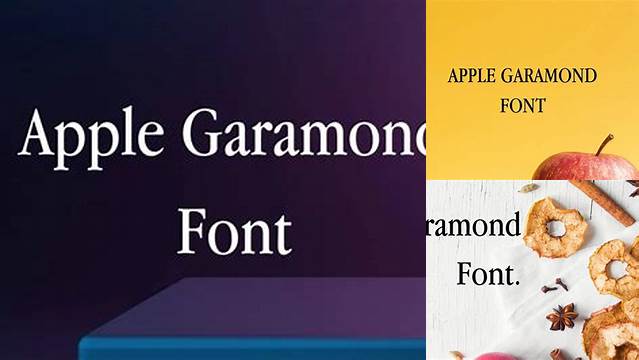
What is Apple Garamond Bold?
Apple Garamond Bold is more than just a typeface; it’s a symbol of Apple's commitment to design and user experience. Originating from the Garamond family, which dates back to the 16th century, Apple Garamond was customized to reflect the brand's minimalist and sophisticated aesthetic. The bold variant, in particular, was prominently used in Apple's marketing materials, product packaging, and user interfaces for many years, becoming instantly recognizable. Its clean lines, balanced letterforms, and exceptional readability made it a favorite among designers and consumers alike. The history of Apple Garamond is deeply intertwined with Apple's brand identity, making it a significant element in the company’s visual communication strategy. Understanding its history provides context for why so many people are still searching for ways to download this font for their own projects. Whether for personal or professional use, the allure of Apple Garamond Bold lies in its timeless appeal and its association with one of the world's most influential brands.
History of Apple Garamond Font
The history of Apple Garamond is a fascinating journey through typography and branding. Claude Garamond, a Parisian printer from the 16th century, originally designed the Garamond typeface. Over the centuries, various interpretations and adaptations emerged. Apple adopted its version, aptly named Apple Garamond, which was specifically tailored for the company's branding needs. It became a cornerstone of Apple's visual identity, appearing in everything from product names to marketing collateral. The bold variant was especially prominent, lending a sense of authority and clarity to the messaging. While Apple eventually moved on to other typefaces like San Francisco, the legacy of Apple Garamond remains. Its historical significance continues to drive interest in those seeking to download the font for their own design endeavors. Understanding this historical context provides valuable insight into why Apple Garamond is still so revered and sought after in the design community. The font's journey from a 16th-century creation to a 20th-century icon highlights its enduring appeal and adaptability. It also underscores the importance of typography in shaping brand identity and user experience, making it a compelling case study for designers and marketing professionals.
Why is Apple Garamond Bold So Popular?
Apple Garamond Bold's popularity stems from its association with Apple's brand identity, its aesthetic appeal, and its functionality. The font embodies simplicity, elegance, and clarity, aligning perfectly with Apple's design philosophy. Its clean lines and balanced letterforms make it highly readable, while its bold weight adds emphasis and visual impact. The association with Apple, a brand synonymous with innovation and quality, further enhances its appeal. Many designers and enthusiasts seek to download Apple Garamond to capture some of that Apple magic in their own projects. Its use in Apple's marketing materials and product packaging created a lasting impression, making it a recognizable and desirable typeface. Moreover, its versatility allows it to be used in a wide range of applications, from branding and advertising to editorial design and web typography. The font’s timeless quality ensures that it remains relevant and sought after even as design trends evolve. Its enduring popularity reflects its success in embodying and communicating Apple's brand values. Ultimately, Apple Garamond Bold represents a perfect blend of form and function, making it a favorite among designers and consumers alike.
Apple Garamond Bold Alternatives
If getting your hands on Apple Garamond Bold proves tricky, don't sweat it! There are tons of fantastic alternatives that capture a similar vibe. Think about fonts like ITC Garamond, which is a close relative. Or even Adobe Garamond Pro. These fonts give you that same classic, elegant feel without the potential copyright headaches. Plus, many of them are available through Adobe Fonts if you're already a subscriber. Exploring different Garamond variations is a great way to find a typeface that fits your project perfectly. You might even discover a new favorite! Don't be afraid to experiment with different weights and styles to achieve the desired effect. The world of typography is vast and full of possibilities. Embracing alternatives not only keeps you on the right side of the law but also opens up new creative avenues. You might find that a slightly different font enhances your design in unexpected ways. Ultimately, the goal is to create visually appealing and effective communication, and many fonts can help you achieve that.
Using Apple Garamond Bold in Graphic Design Projects
Using Apple Garamond Bold in graphic design projects can elevate your work with its classic and elegant aesthetic. Its clean lines and balanced letterforms make it ideal for various applications, from branding and advertising to editorial design and web typography. When incorporating this font, consider its readability and visual impact. Use it for headlines, logos, and body text to create a cohesive and sophisticated look. Pair it with contrasting fonts for a balanced and dynamic design. Experiment with different weights and styles to achieve the desired emphasis and visual hierarchy. Remember to consider the overall design context and ensure that the font complements the other elements. Apple Garamond Bold's versatility allows it to be used in both print and digital media, making it a valuable asset for designers. Its association with Apple's brand identity adds a touch of prestige and sophistication to any project. Whether you're designing a logo, creating a brochure, or developing a website, Apple Garamond Bold can help you achieve a polished and professional look. Always prioritize readability and ensure that the font enhances the overall message and visual appeal of your design.
Tips for Pairing Apple Garamond Bold With Other Fonts
Paring Apple Garamond Bold with other fonts can create visually appealing designs. A general rule is to combine serif fonts with sans-serif fonts for contrast. For example, pair Apple Garamond Bold with a clean sans-serif like Helvetica or Arial. This combination works well for headlines and body text, providing a balance between elegance and readability. Alternatively, you can pair it with a more modern sans-serif font like Open Sans or Montserrat for a contemporary feel. When choosing a complementary font, consider the overall design aesthetic and the message you want to convey. Experiment with different font combinations to find the perfect balance. Use online tools and resources to explore font pairings and get inspiration from professional designers. Pay attention to font weights, sizes, and spacing to ensure a cohesive and harmonious design. Remember that the goal is to create a visually appealing and easy-to-read layout. Font pairing is an art, so don't be afraid to experiment and break the rules. The key is to find a combination that reflects your brand identity and enhances the overall impact of your design.
Where to Learn More About Apple Garamond Bold and Typography
If you're eager to learn more about Apple Garamond Bold and typography in general, there are numerous resources available to expand your knowledge. Online courses and tutorials are a great way to learn the fundamentals of typography, including font anatomy, kerning, leading, and visual hierarchy. Websites like Coursera, Udemy, and Skillshare offer a variety of typography courses taught by experienced designers and educators. Books on typography are another valuable resource. Look for titles that cover the history of typography, font design principles, and advanced typography techniques. Design blogs and magazines often feature articles and tutorials on typography, showcasing different fonts and design trends. Follow typography experts on social media to stay up-to-date on the latest news and insights. Consider joining online design communities and forums to connect with other designers and share your knowledge. Don't be afraid to experiment with different fonts and design techniques to develop your own unique style. By investing time and effort in learning about typography, you can improve your design skills and create more effective and visually appealing designs.